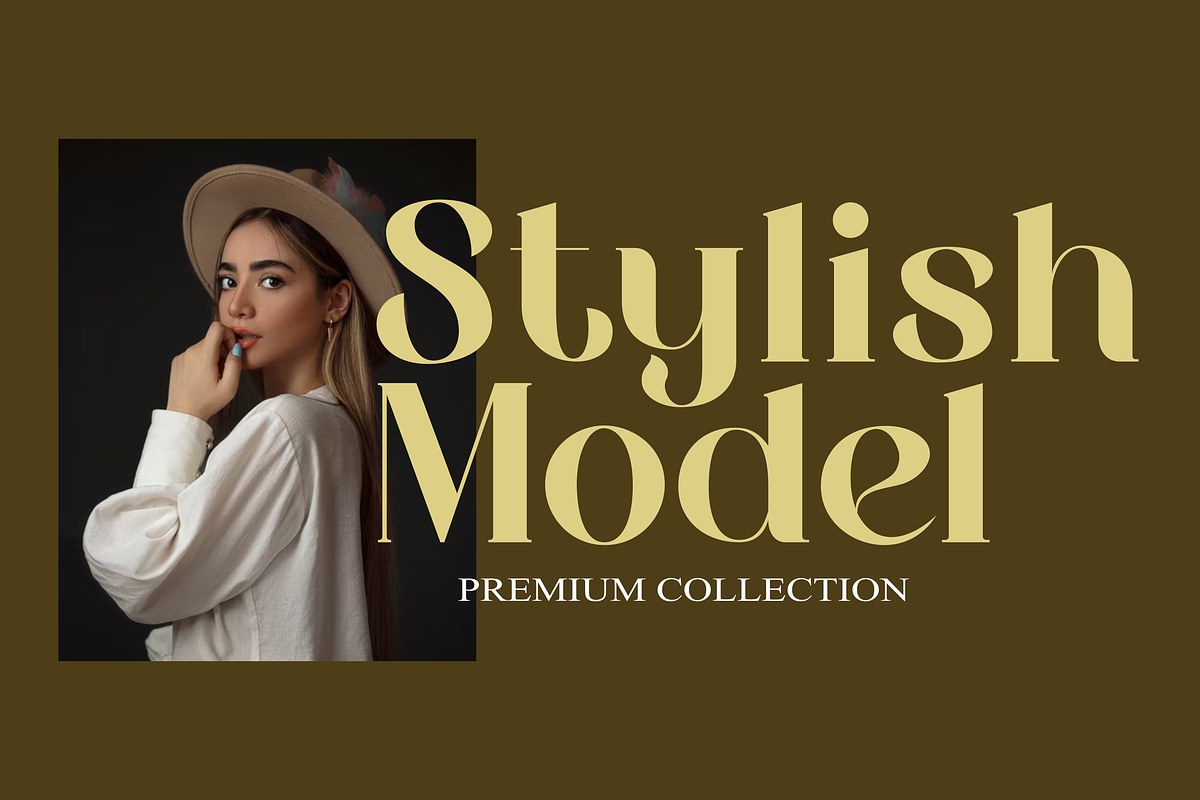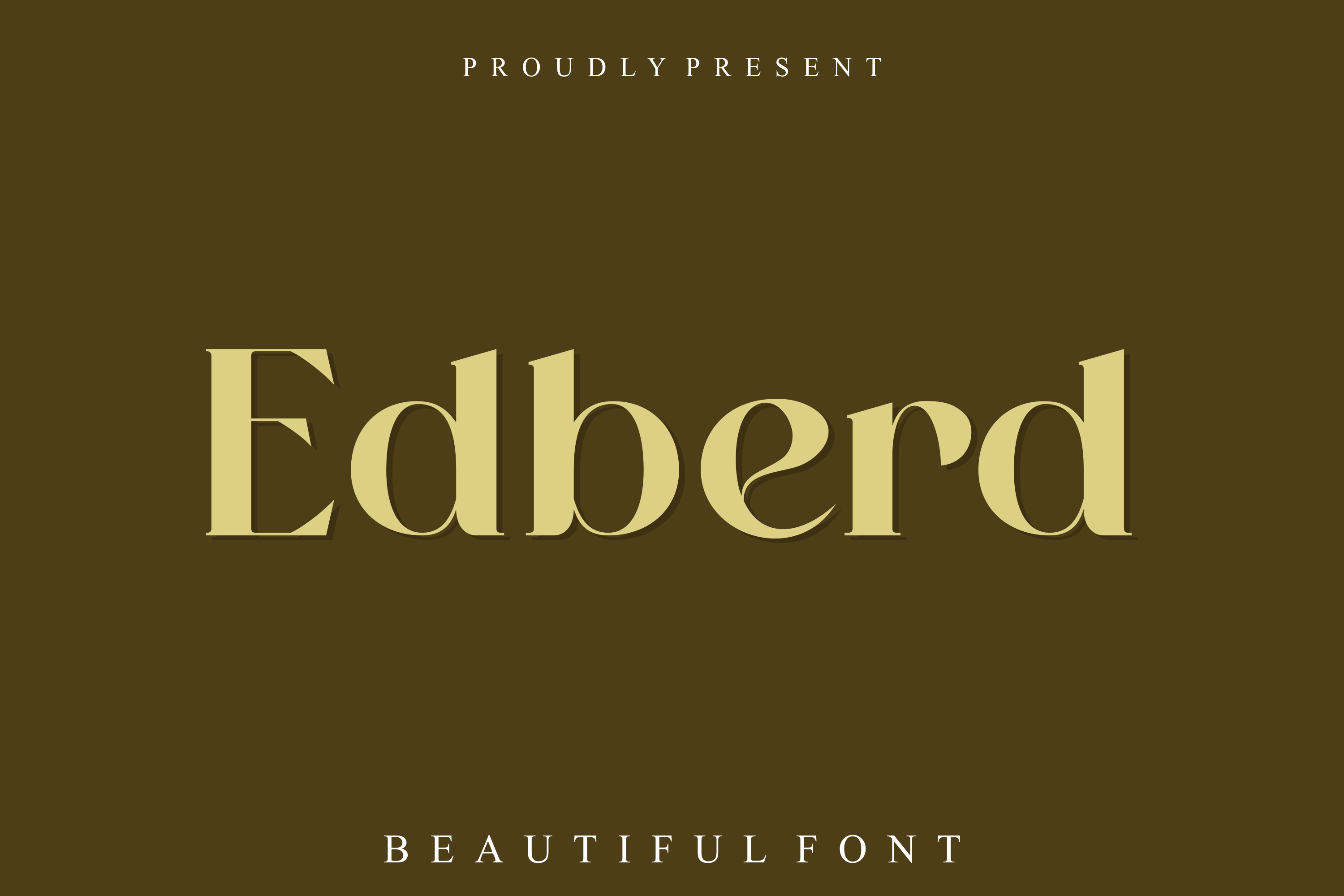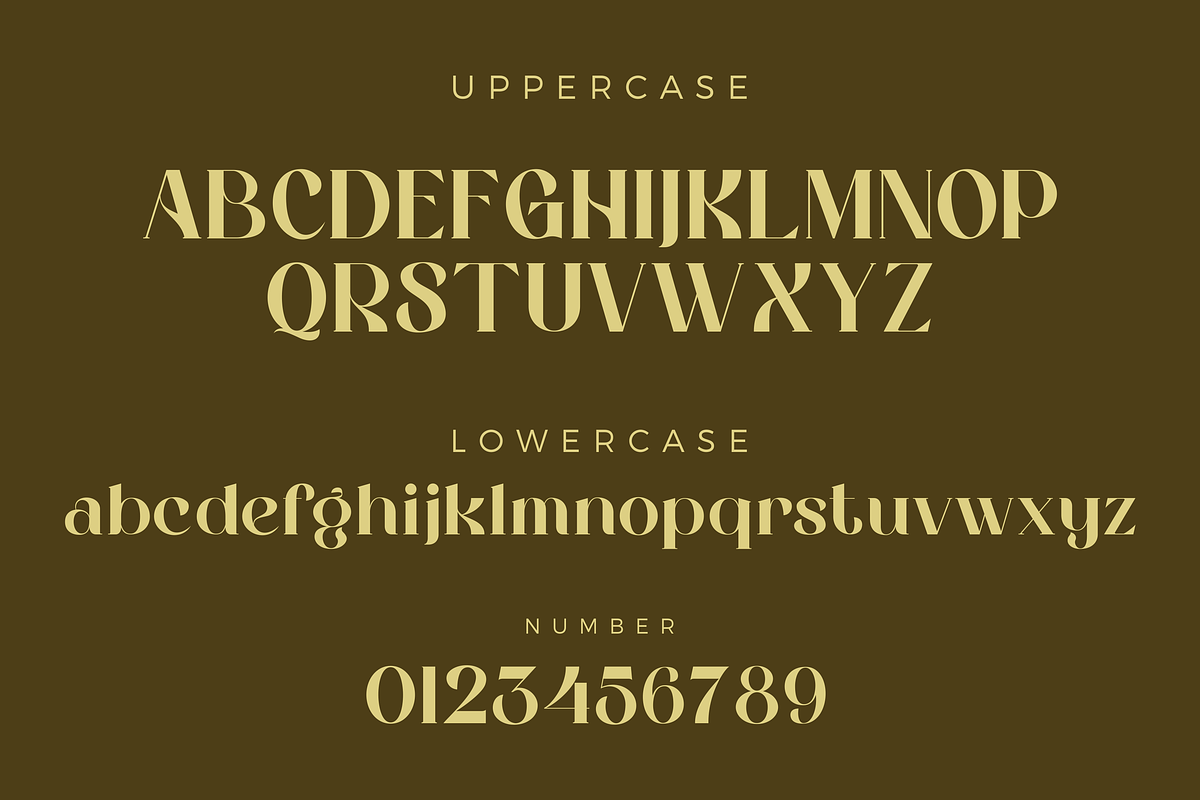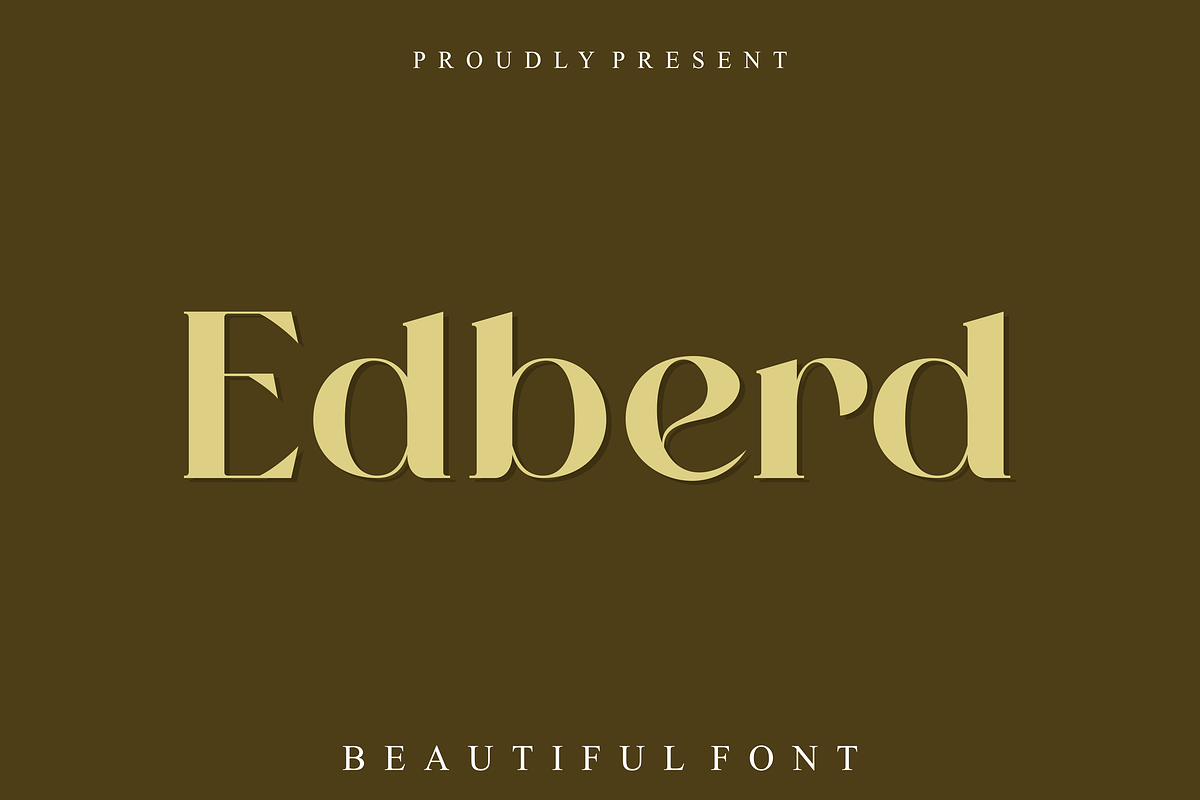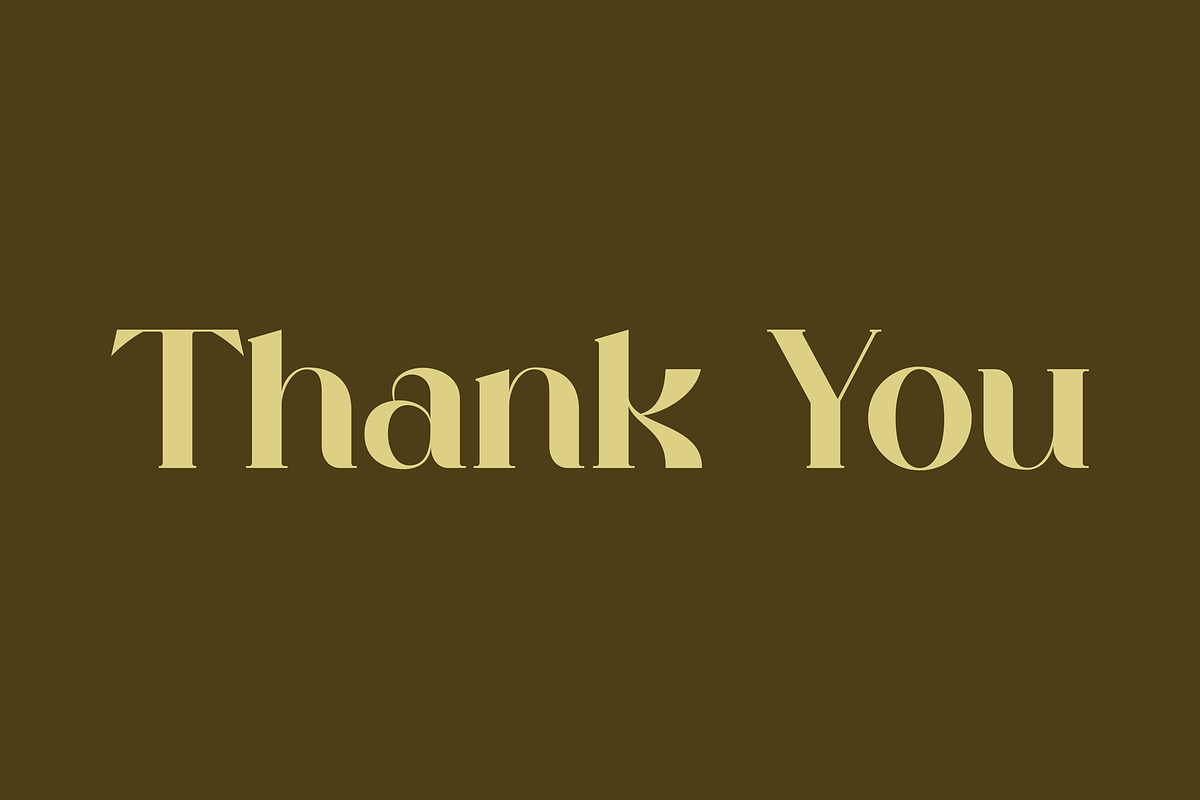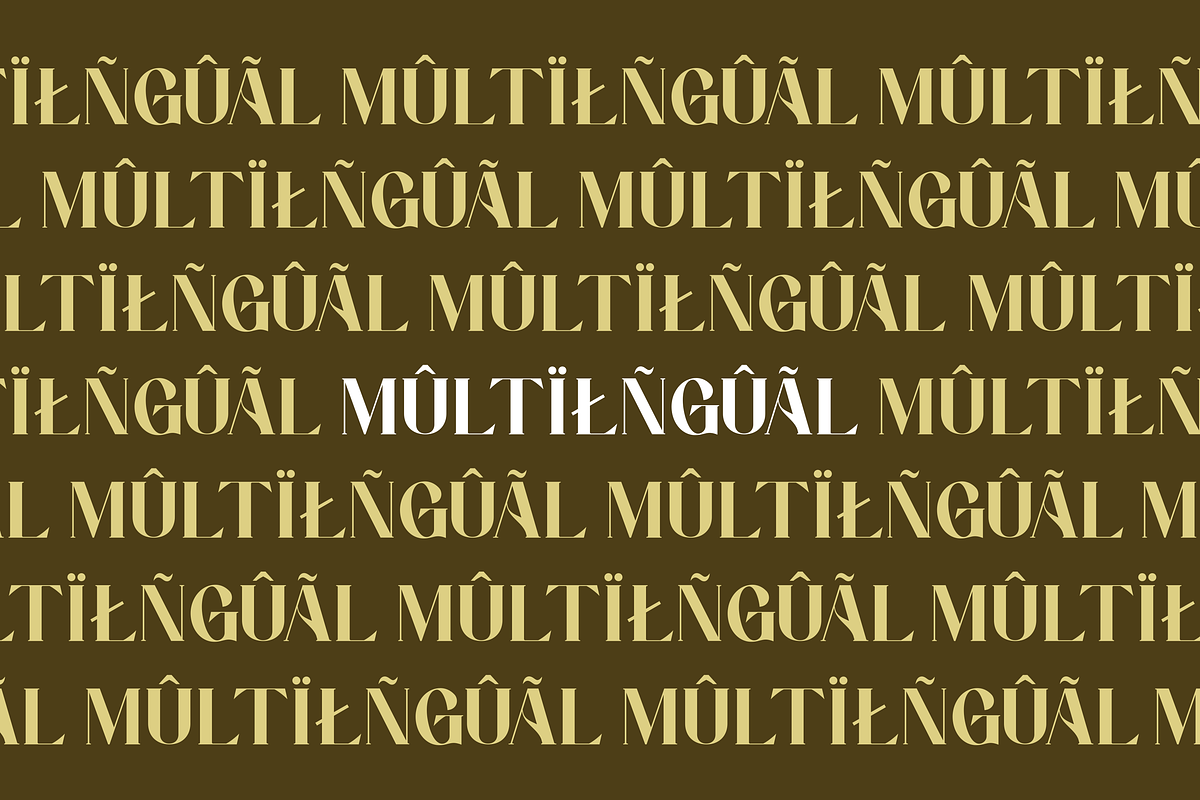
Edberd Beauty Font Serif
Introducing of our new product the name is Edberd a Modern Sans Serif Font, Edberd inspired by the upscale luxury style. This font is perfect for posters, social media posts, branding, personal projects, etc.